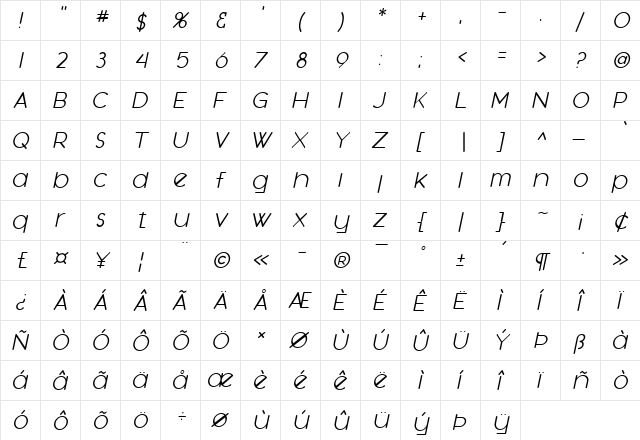
SF Orson Casual Light Oblique
Oblique ·  ShyFonts Type Foundry ·
DesignerShyFonts Type Foundry
Design Context for SF Orson Casual Light Typeface
SF Orson Casual Light takes a measured approach to typography — its balanced proportions and neutral character make it a reliable workhorse for both digital and print work. Its italic angle brings a sense of urgency and motion to the letterforms. The delicate stroke weight brings airiness and refinement to layouts.
Pro Tip: Try SF Orson Casual Light for annotation and caption copy alongside an upright companion — the contrast in angle creates a dynamic but ordered typographic system.